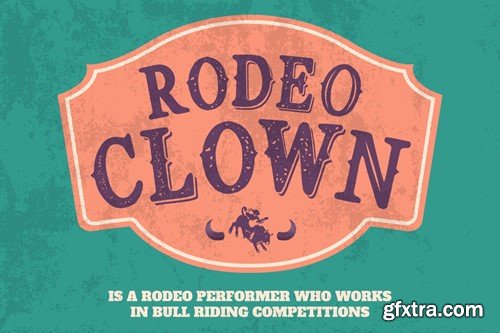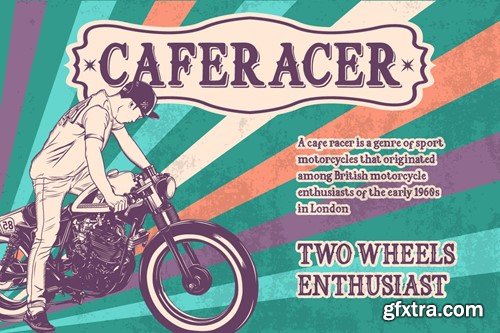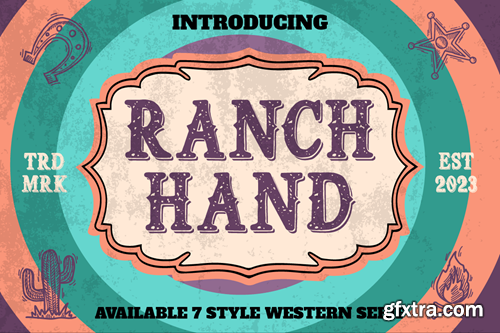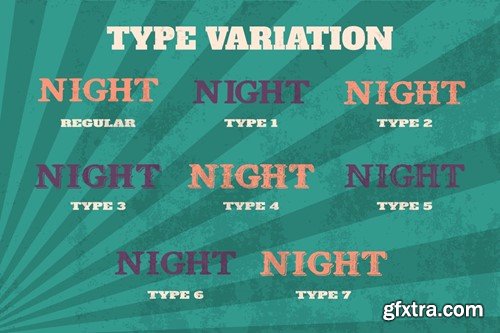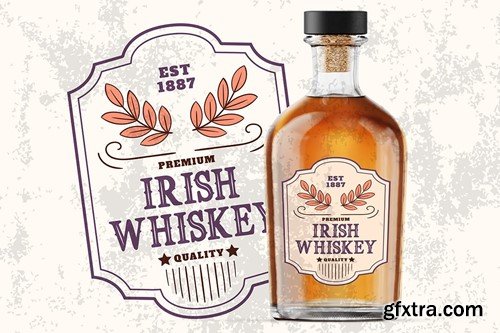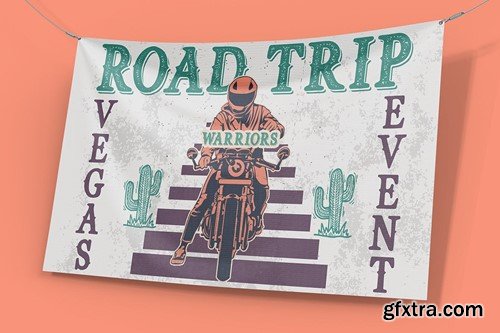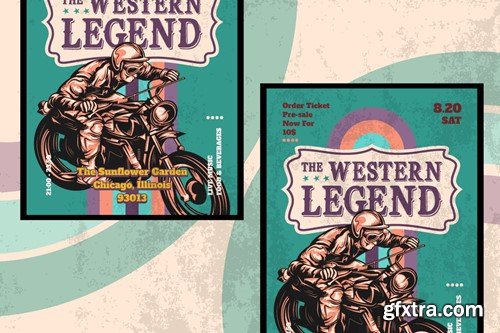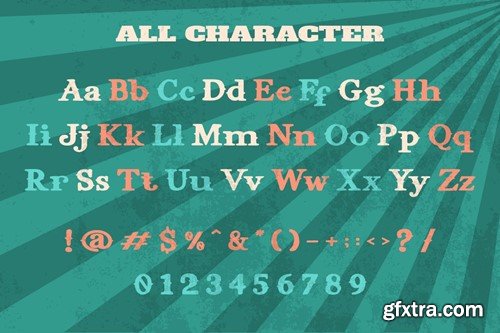
Ranch Hand – Display Westren Font
Ranch Hand is a display western font that captures the essence of the wild west with a touch of quirkiness and fun. This font is perfect for creating festive designs for Christmas events, as it offers seven different styles that can be used individually or combined to create stunning effects. Whether you want to add some retro flair, vintage charm, or rodeo vibe to your projects, Ranch Hand has you covered.
This font is made from high-quality materials, such as Kevlar laces and USA-grown tier 1 cattle hides, to ensure durability and authenticity. Ranch Hand is also easy to use and maintain, as it does not require constant cleaning or caring. You can use this font for various purposes, such as logos, branding, children’s themes, crafting, invitations, packaging, posters, titles, business signage, greeting cards, stickers, children’s books, magazines, and more. Ranch Hand is more than just a font; it’s an adventure that takes you to a world where the old meets the new.